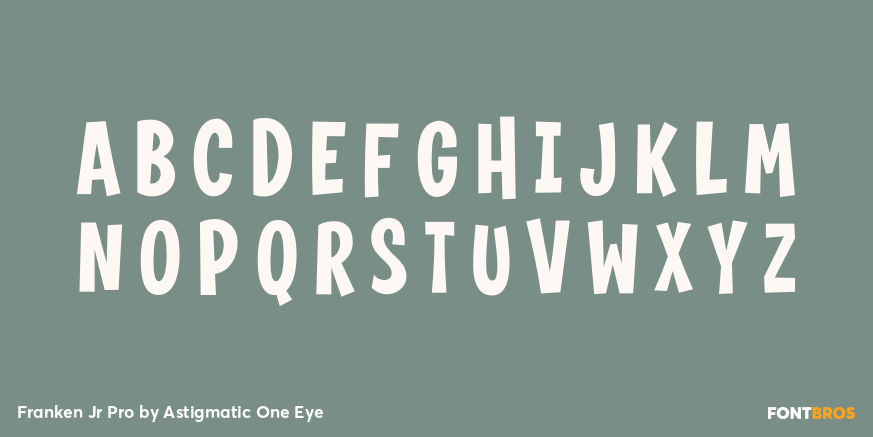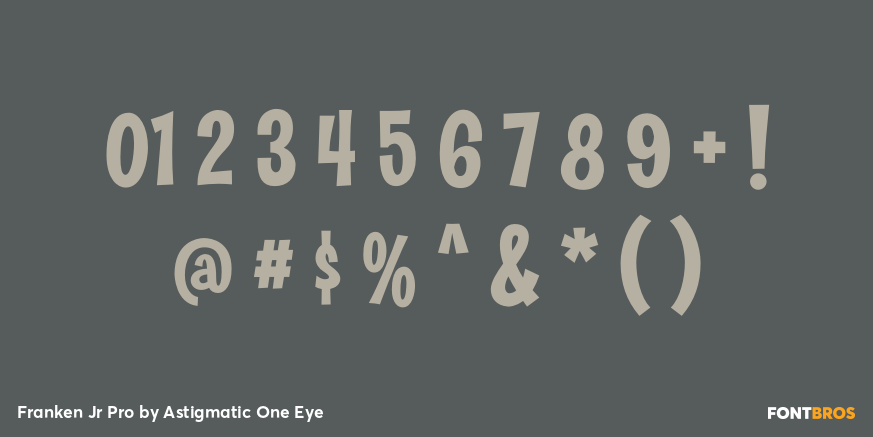
Franken Jr Pro
Franken Jr. Pro was inspired by the title screen from the 1966 Hanna Barbera cartoon titled, ?Frankenstein Jr.? The original titling had a unique presence to it, overflowing with charm and offbeat personality.
The addition of a Small Caps set, Unlimited Fractionals, Superiors & Inferiors, and Ordinals gave a bit more serious, but not too serious) titling stance to the Franken Jr. Pro typestyle.
Franken Jr. Pro truly embodies the comic lettering of its time, and gives designs a lively retro spark.